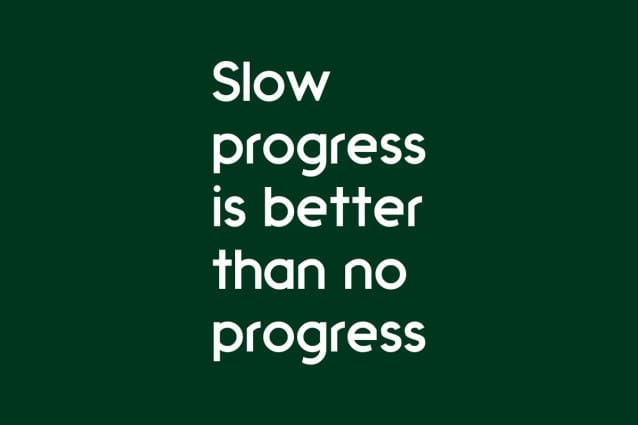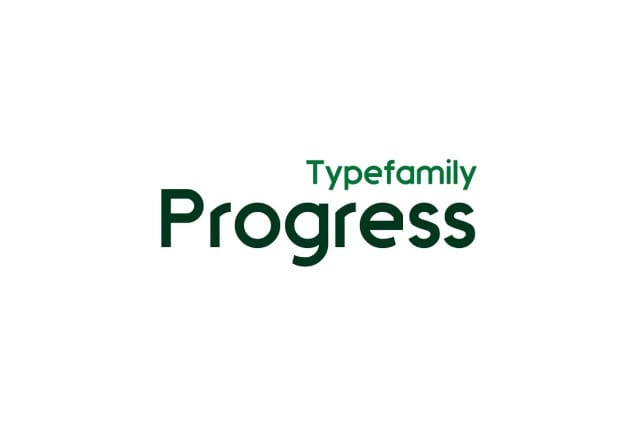
Progress Font
Progress Font is simple Sans Serif type family inspired by simple, modern shapes. I made this font to use it for creating logos. But I believe Progress can work for other stuff too. I hope you like this!